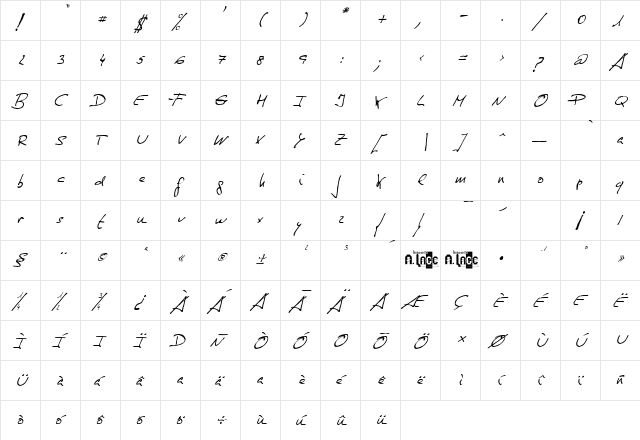
de Manu 1 NormalItalic
Design Context for de Manu 1 Typeface
de Manu 1 is a composed and adaptable typeface that performs quietly and consistently across a wide range of design contexts. Its italic angle brings a sense of urgency and motion to the letterforms.
Pro Tip: Use de Manu 1 for emphasis, pull quotes, and subheadings where its slanted energy can add rhythm to the layout.